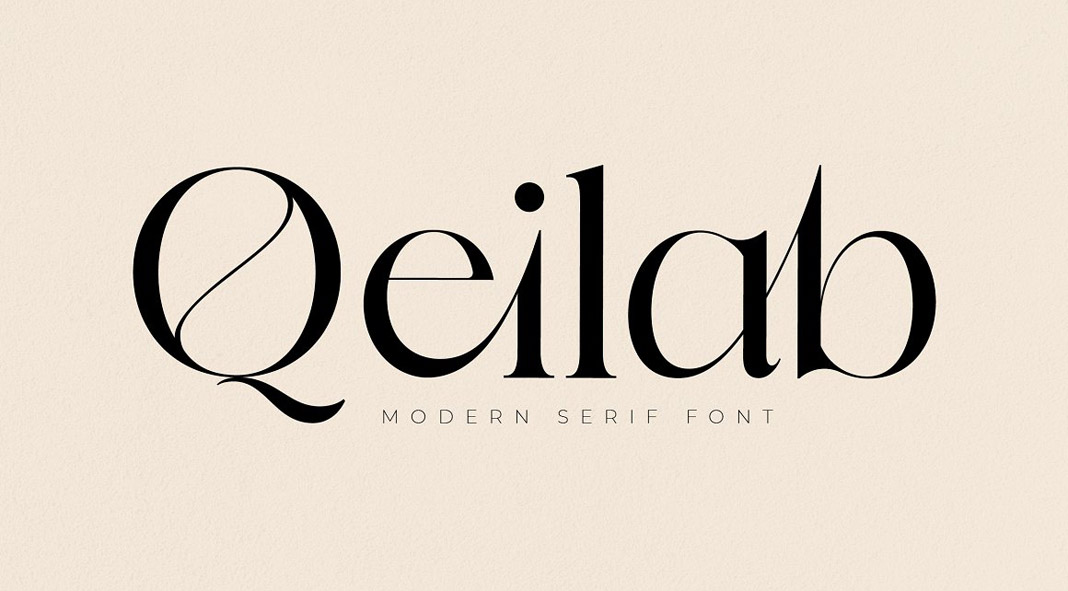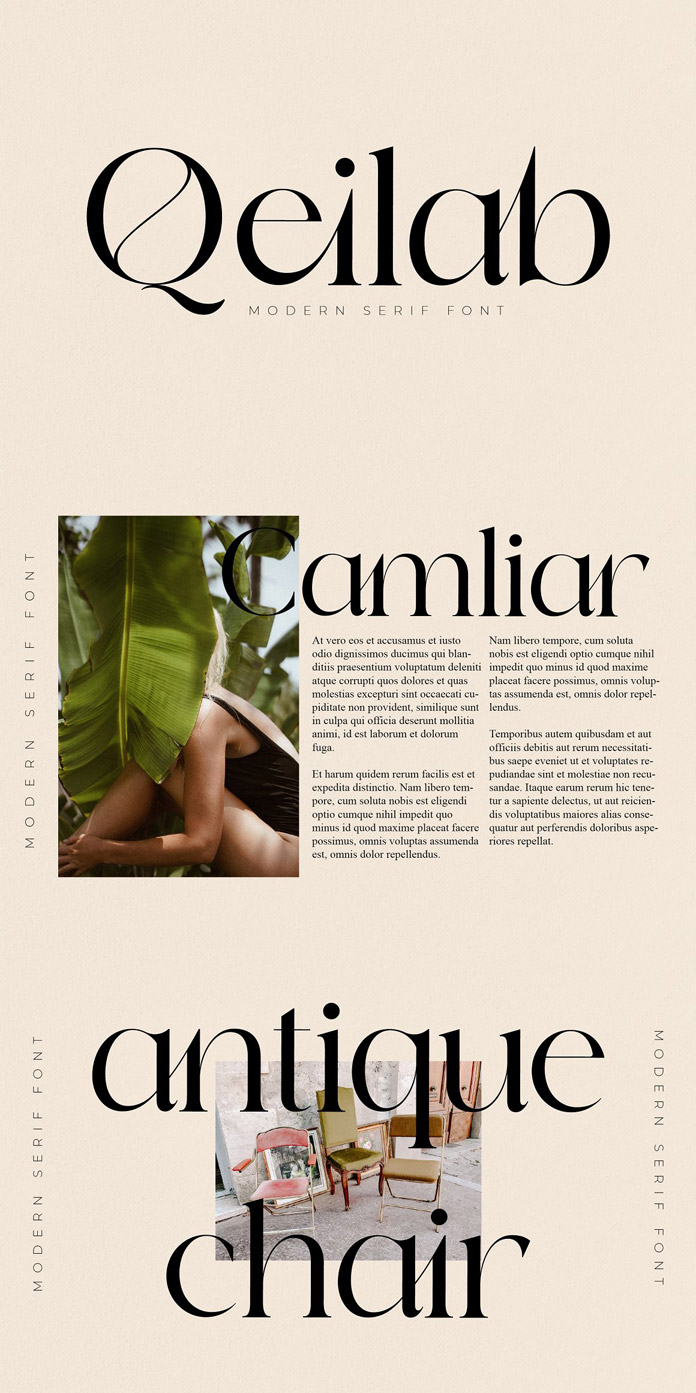
Say hello to Qeilab, an elegant serif font for display use.
Storytype Studio just released the Qeilab typeface, a unique serif font that offers a classic, elegant style combined with modern elements. The typeface is well-suited for elegant and luxurious logos, book covers, fashion brands, magazines, clothing, lettering, quotes, and so much more.
Qeilab Modern Serif Font by Storytype Studio